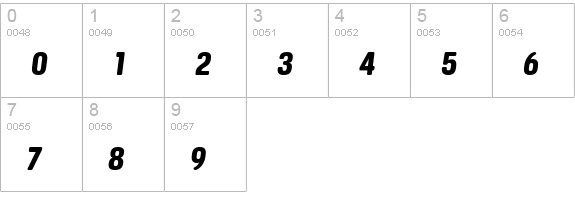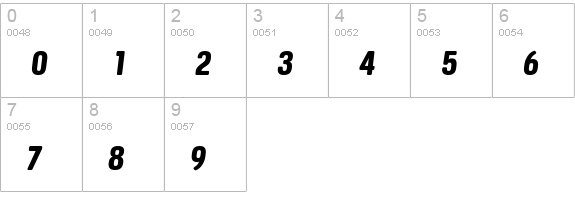
Ketchupa-Oblique Font Details
Ketchupa-Oblique is a distinctive, italic variant in the Ketchupa typeface family \xE2\x80\x94 well suited to design and typography projects.
Introducing Ketchupa-Oblique, a stunning and versatile font that effortlessly combines elegance with a touch of playfulness. This unique typeface captures attention with its slanted and slightly tilted letters, infusing any design with a sense of dynamism and movement. Ketchupa-Oblique is the perfect choice for those seeking a font that stands out from the crowd. Its sleek and curvaceous lines add a modern and sophisticated touch to any project, whether it's a logo, branding materials, or a headline. With its bold and vibrant appearance, Ketchupa-Oblique exudes confidence and creativity, making it ideal for fashion, beauty, and lifestyle-related designs. One of the most remarkable features of Ketchupa-Oblique is its exceptional legibility, ensuring that your message is delivered loud and clear. The letters flow harmoniously, creating a smooth reading experience, even at smaller sizes. This makes it a great option for websites, blogs, and printed materials, where readability is paramount. But what truly sets Ketchupa-Oblique apart is that it is available for free! Yes, you read it right – this remarkable font can be freely downloaded at FontsMarket.com. Now, you don't have to compromise on quality or break the bank to add a touch of creativity to your designs. With Ketchupa-Oblique, you can elevate your projects to new heights without spending a dime. So, what are you waiting for? Experience the magic of Ketchupa-Oblique and let your designs come to life with its captivating charm. Download it now at FontsMarket.com and unleash your creativity like never before.